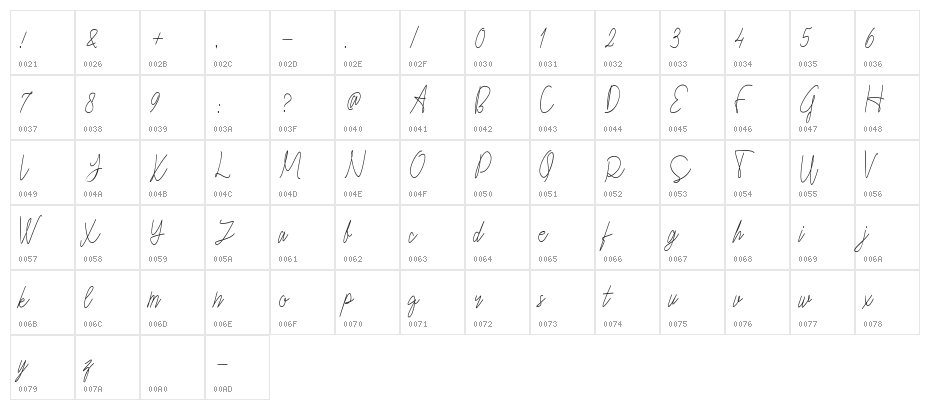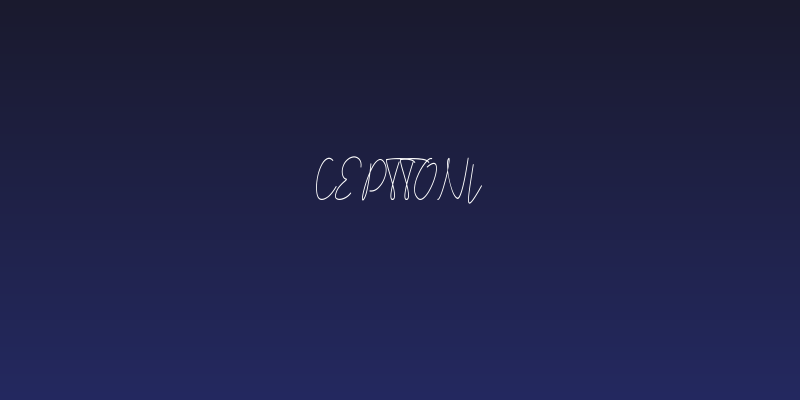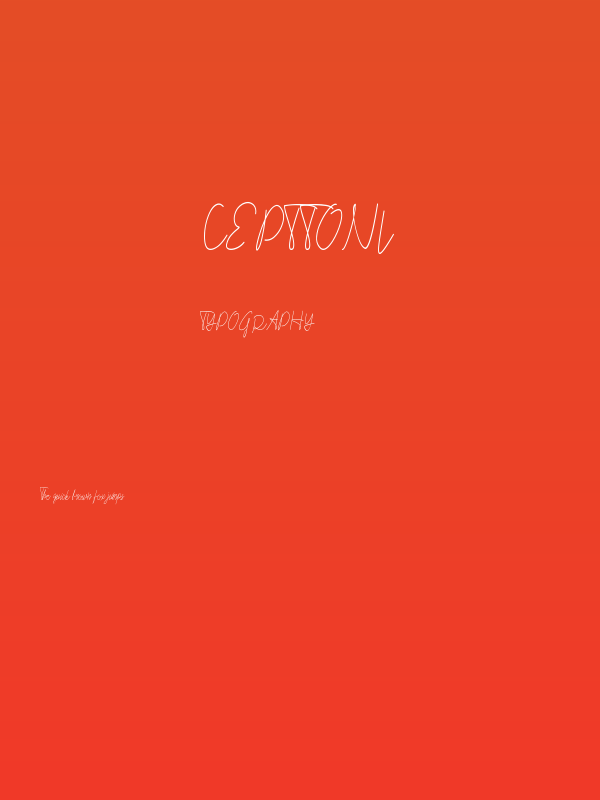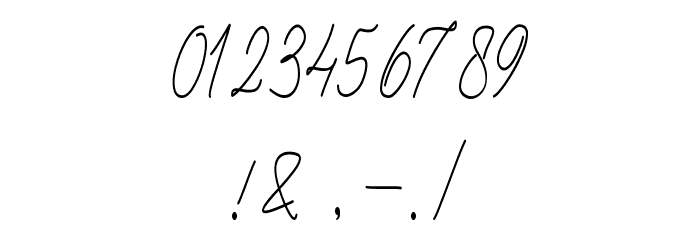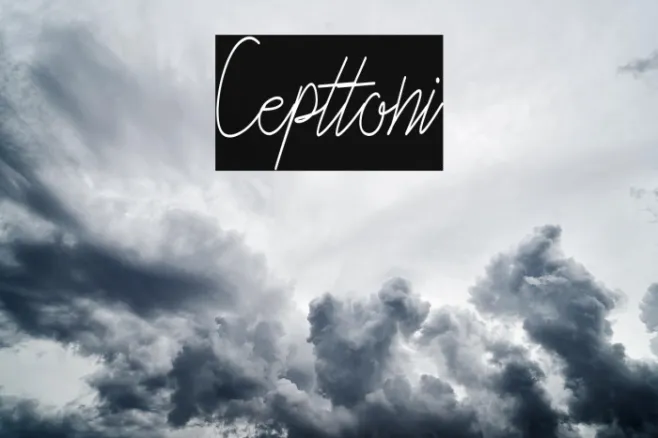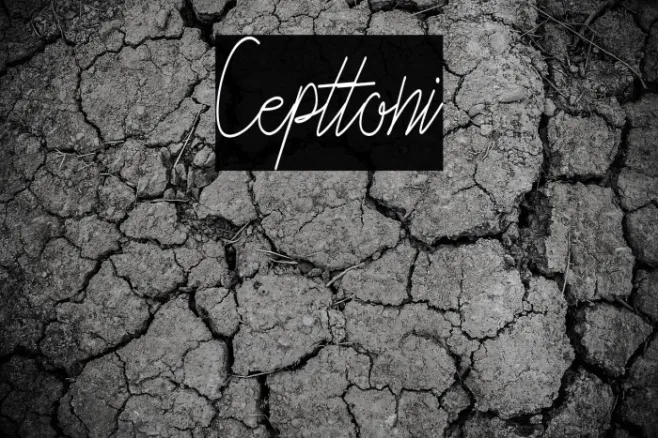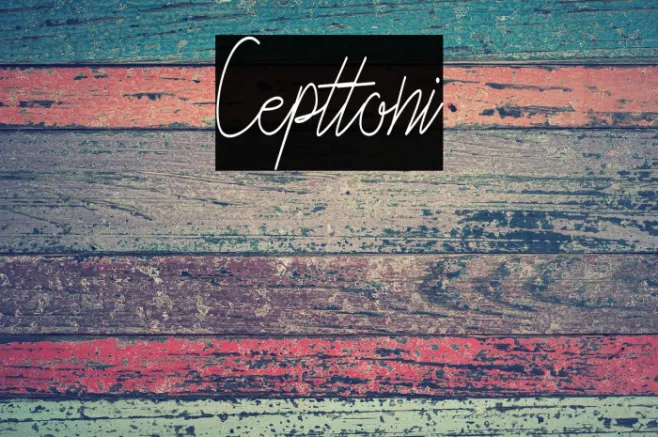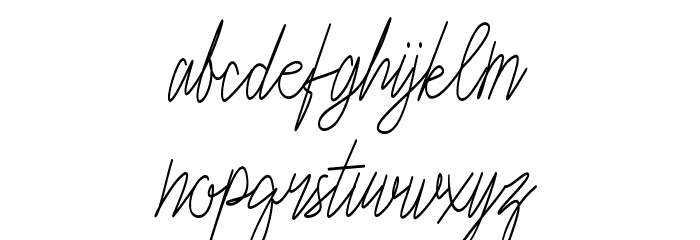
Cepttoni Font
Cepttoni Description
This font exudes a casual elegance with its fluid, handwritten style. The letters are connected in a smooth, flowing manner, reminiscent of cursive handwriting. The uppercase letters are tall and slender, while the lowercase letters maintain a consistent flow, enhancing readability. The numerals are distinct and align well with the overall style. Special characters are integrated seamlessly, maintaining the font's cohesive look. This font is perfect for projects that require a personal touch, such as invitations, greeting cards, or branding materials.
| Overall Style | Casual, Elegant |
| Use Case | Logos, Invitations, Greeting cards |
| Proposed Projects | Ideal for invitations, greeting cards, personal branding, and creative projects. |